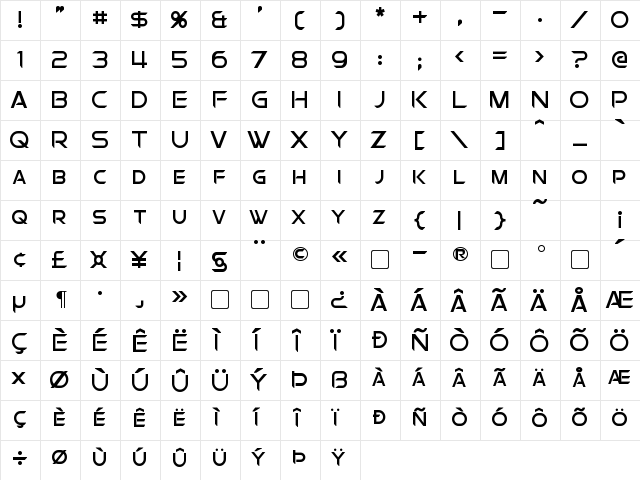
Chromia Supercap Regular
| Foundry | Pixel Sagas |
| Designer | Neale Davidson |
Design Context for Chromia Supercap Typeface
Chromia Supercap takes a measured approach to typography — its balanced proportions and neutral character make it a reliable workhorse for both digital and print work.